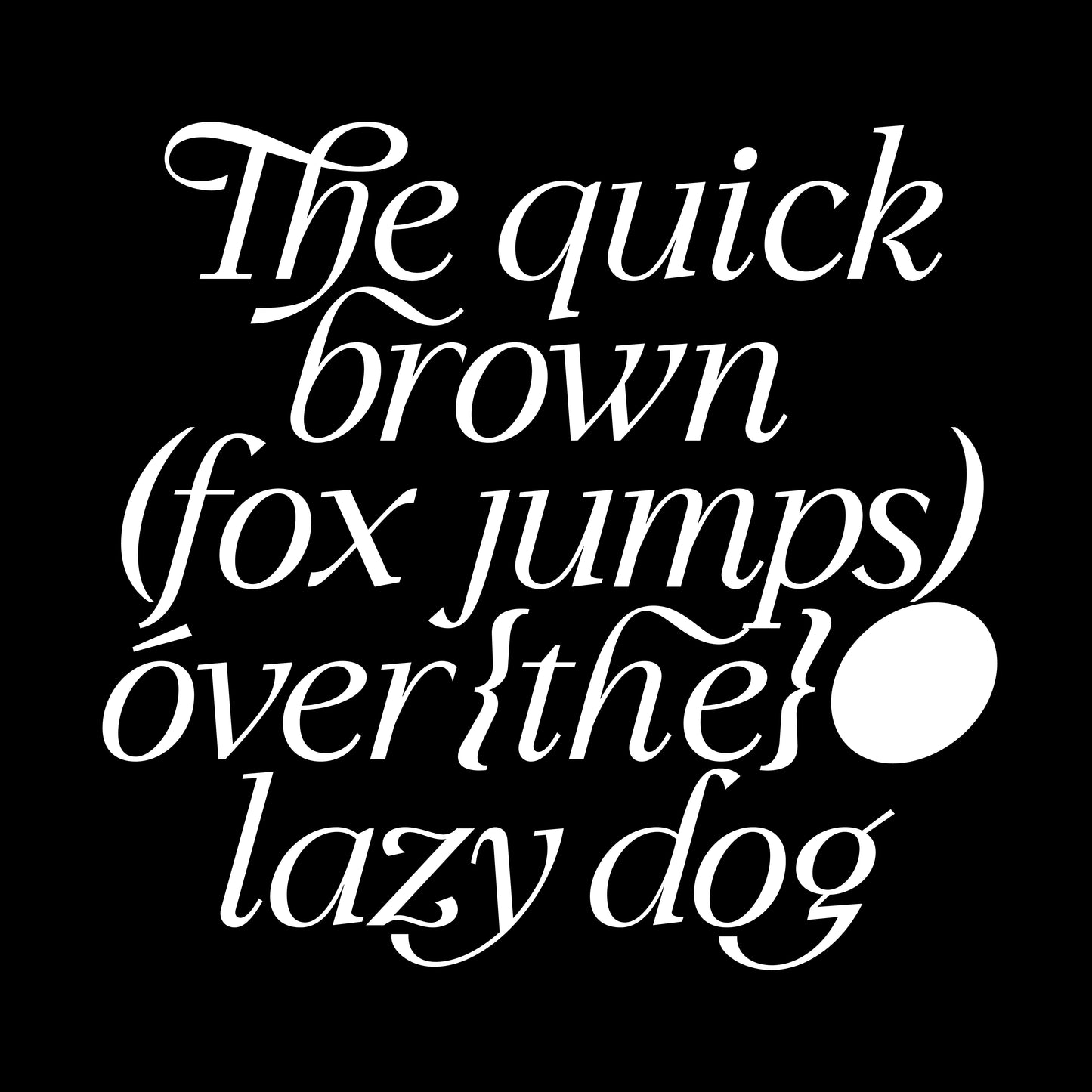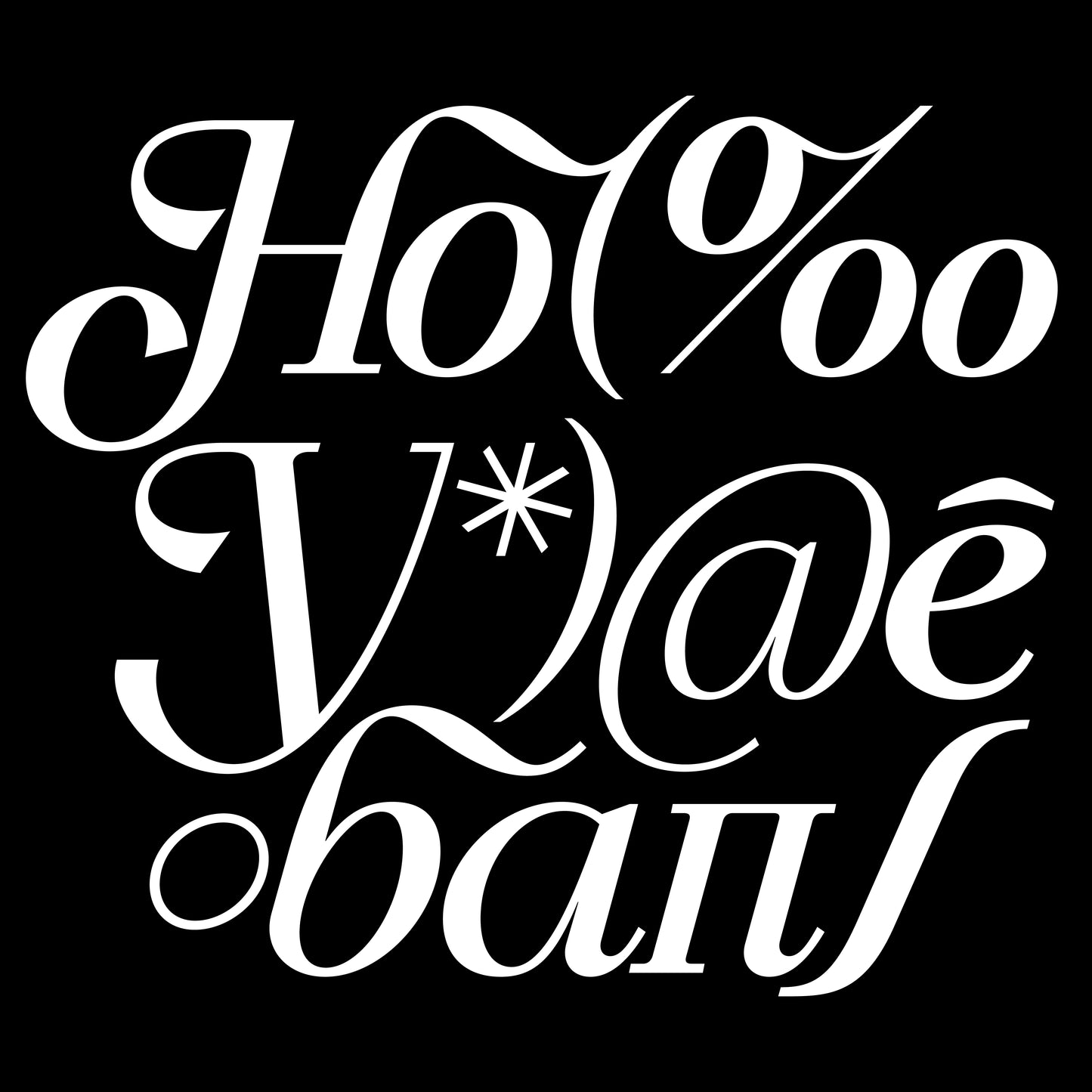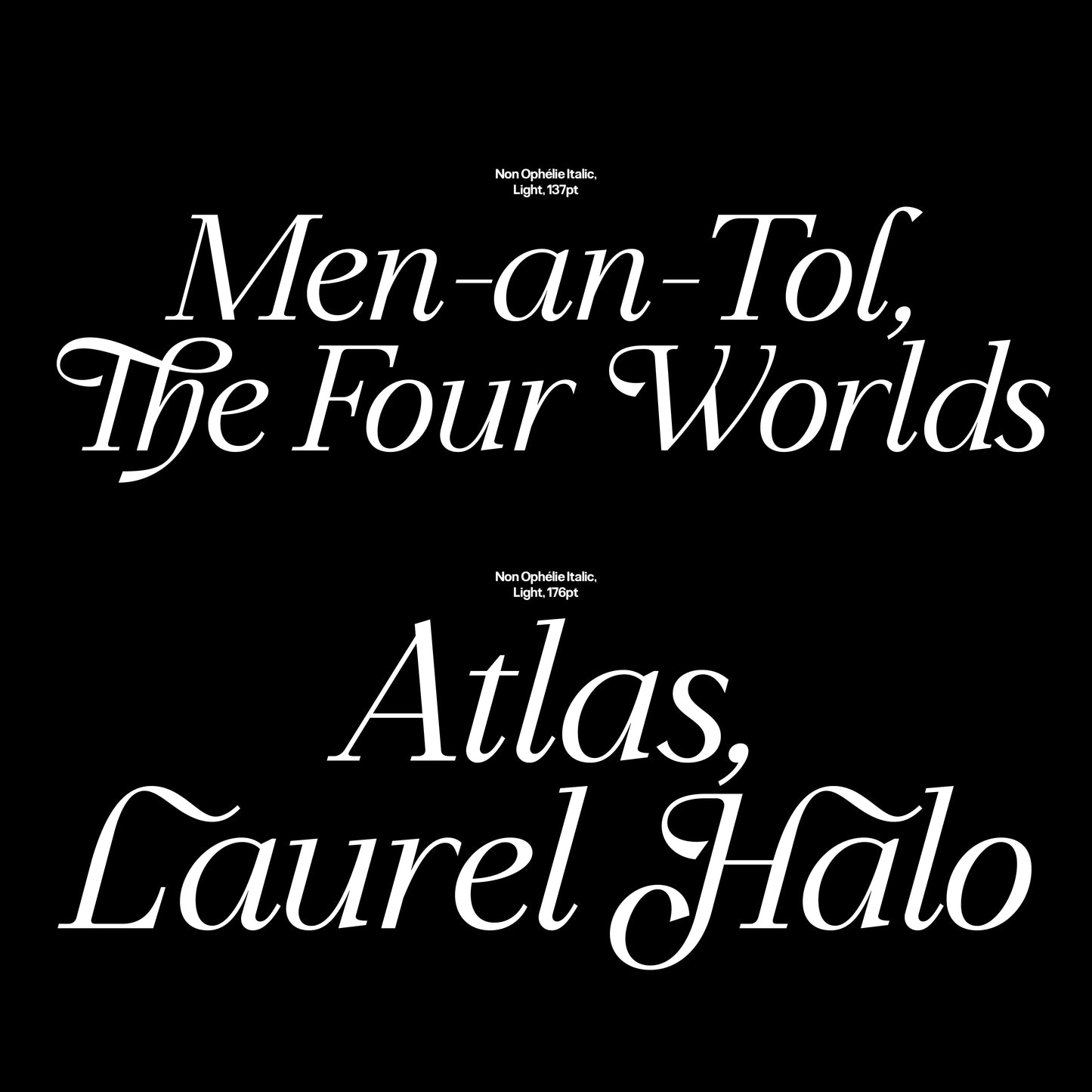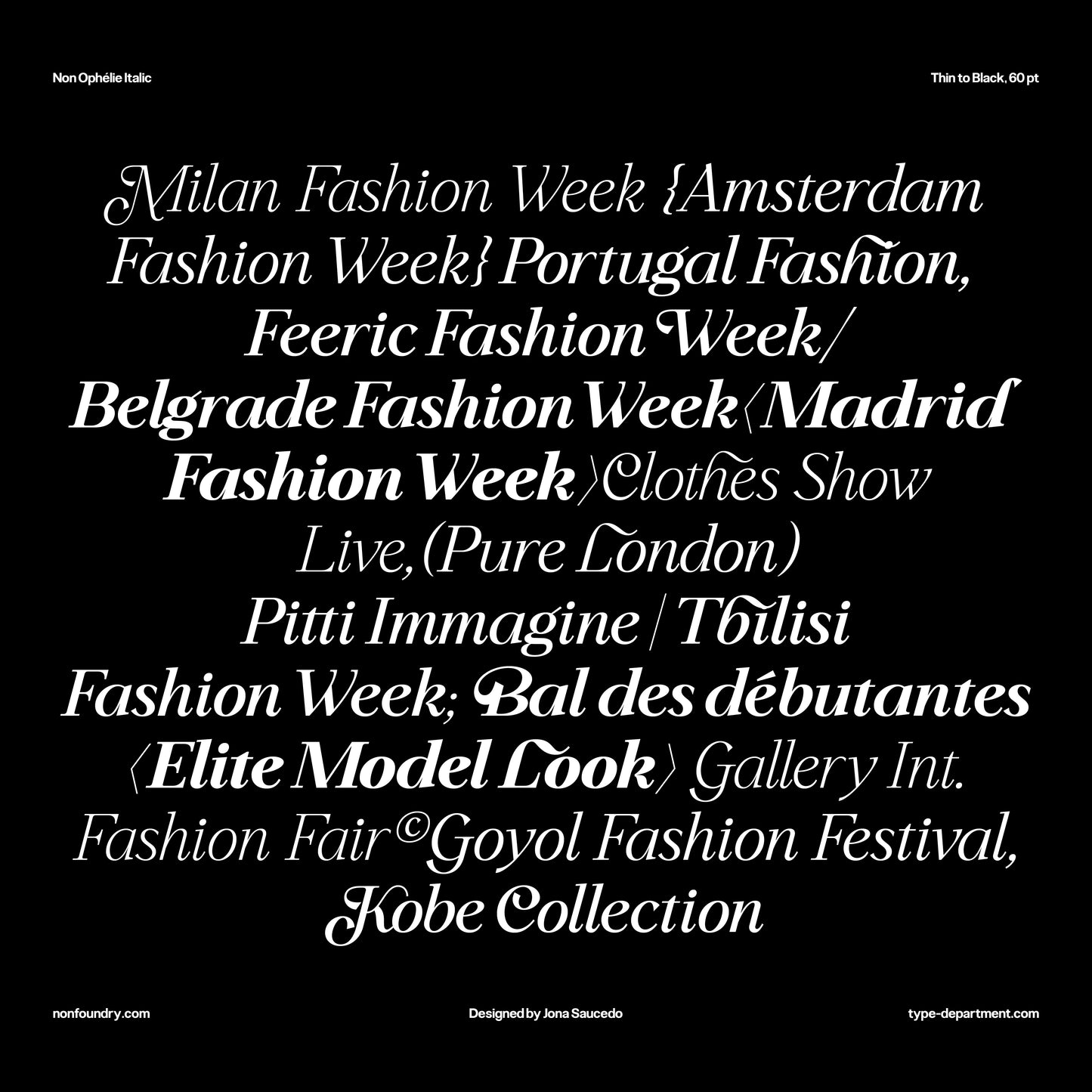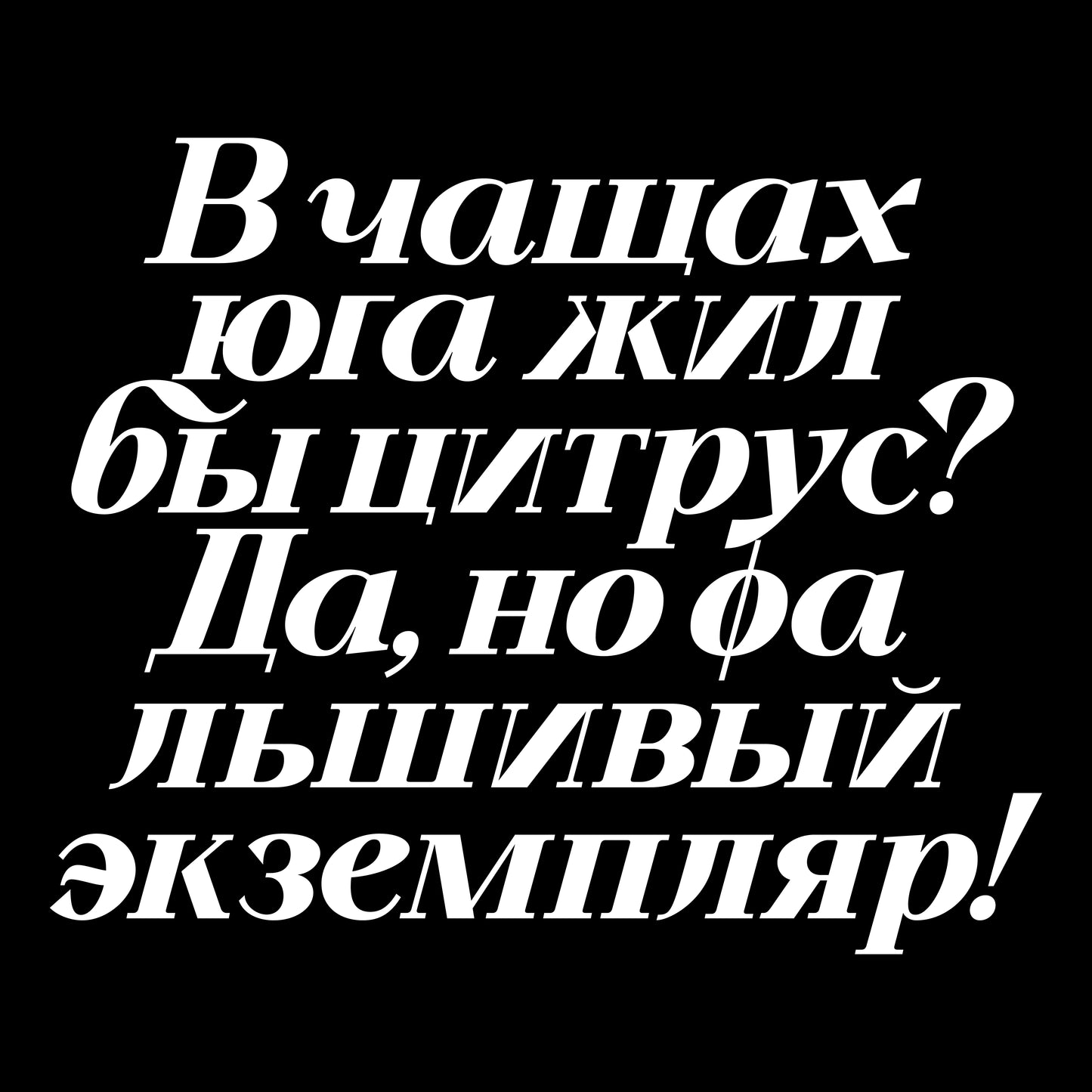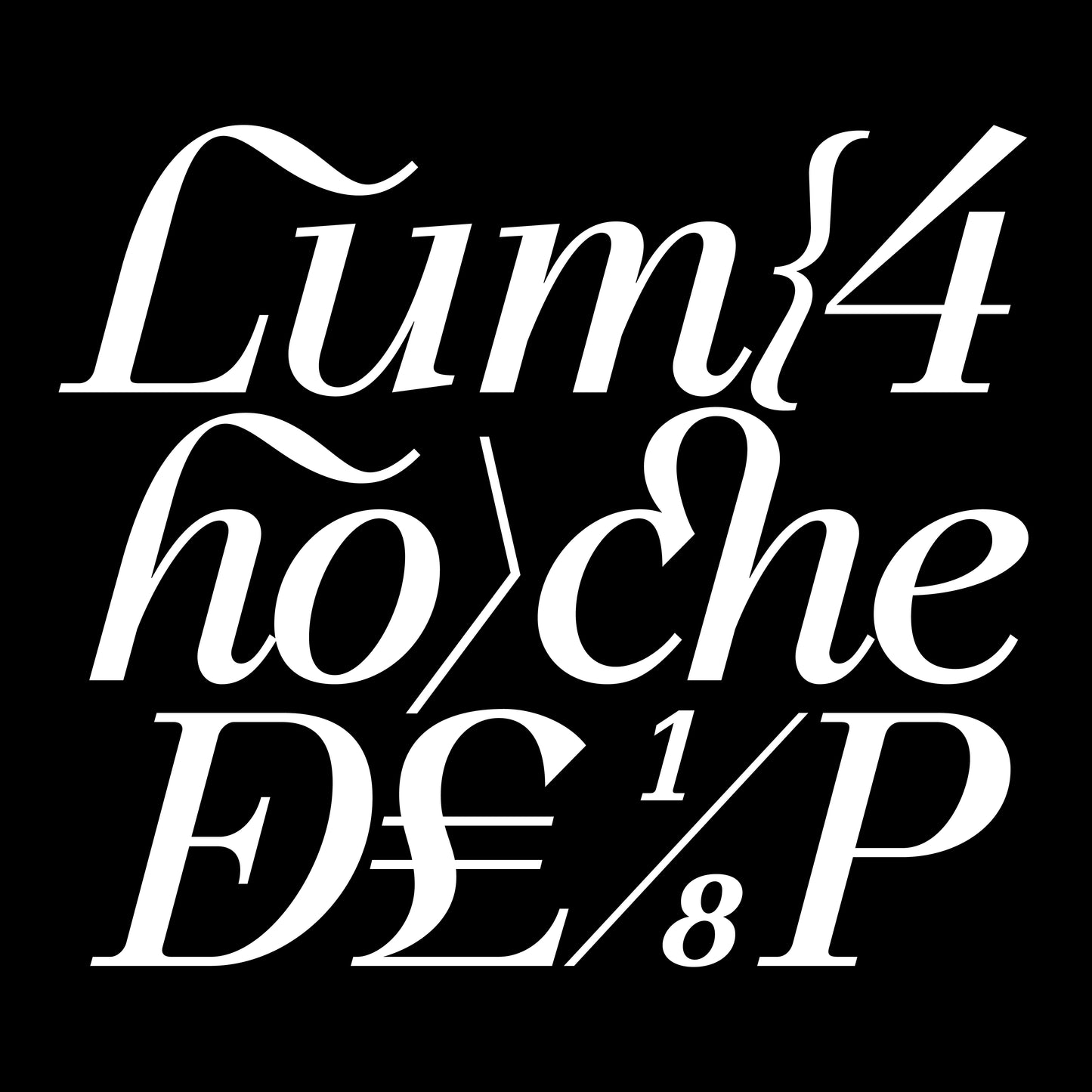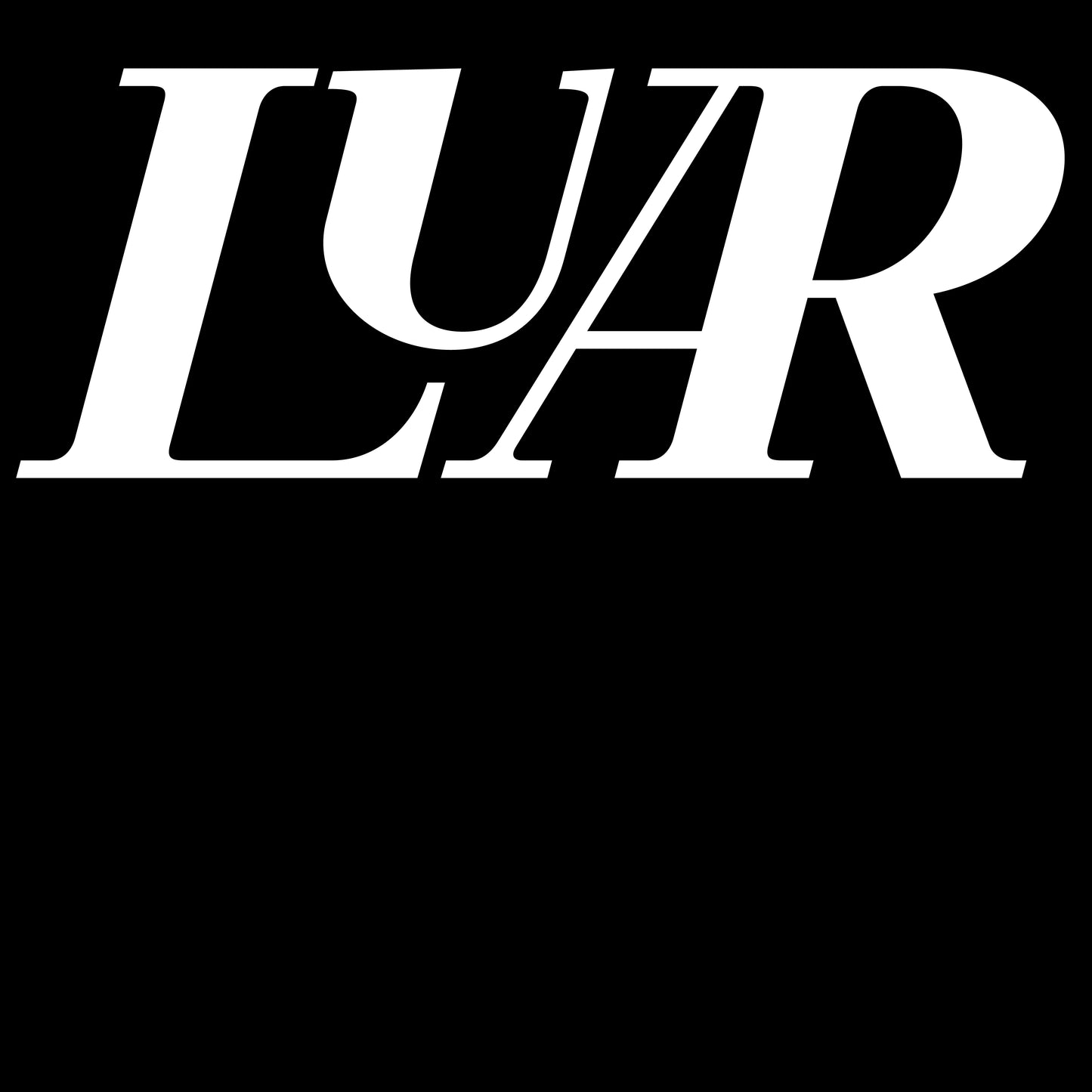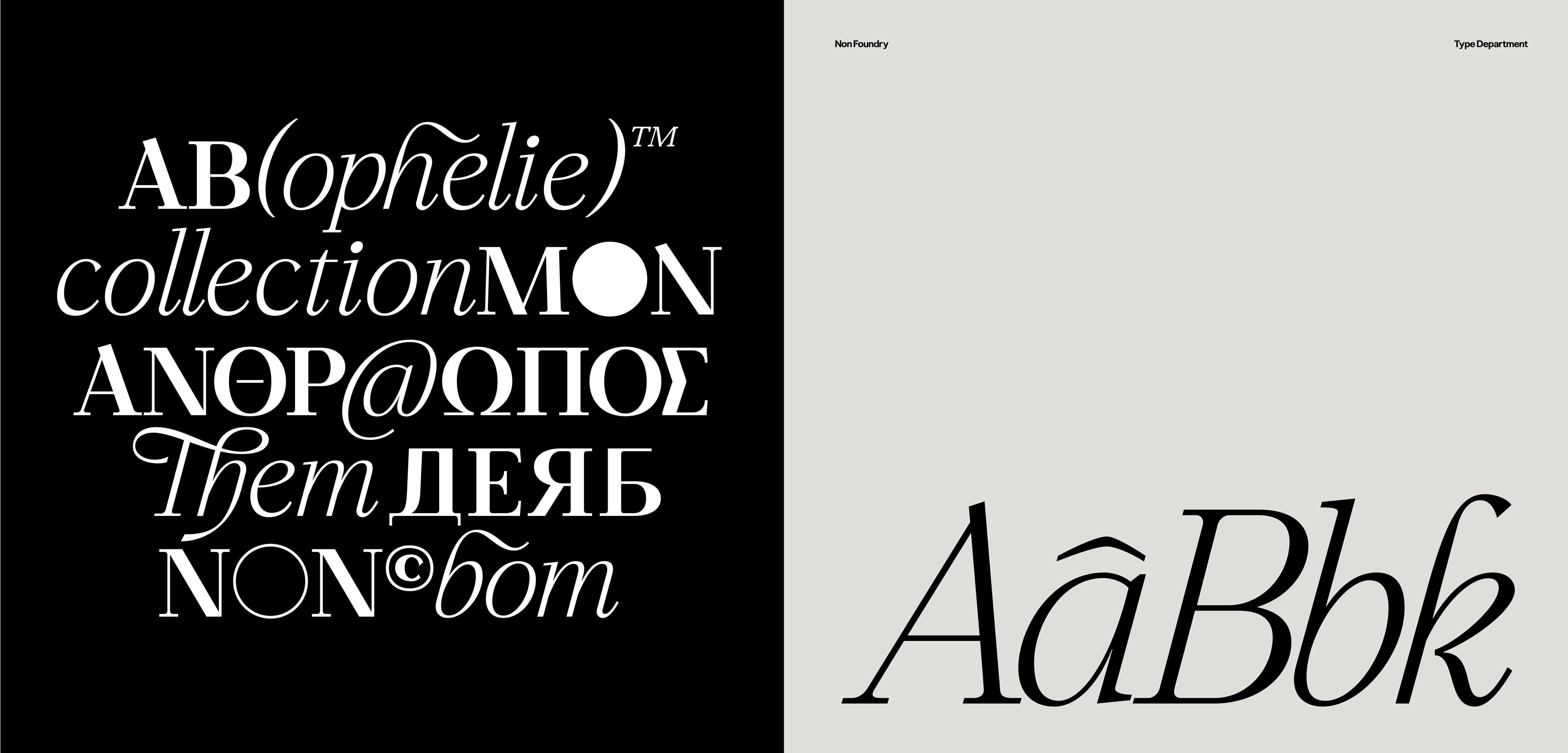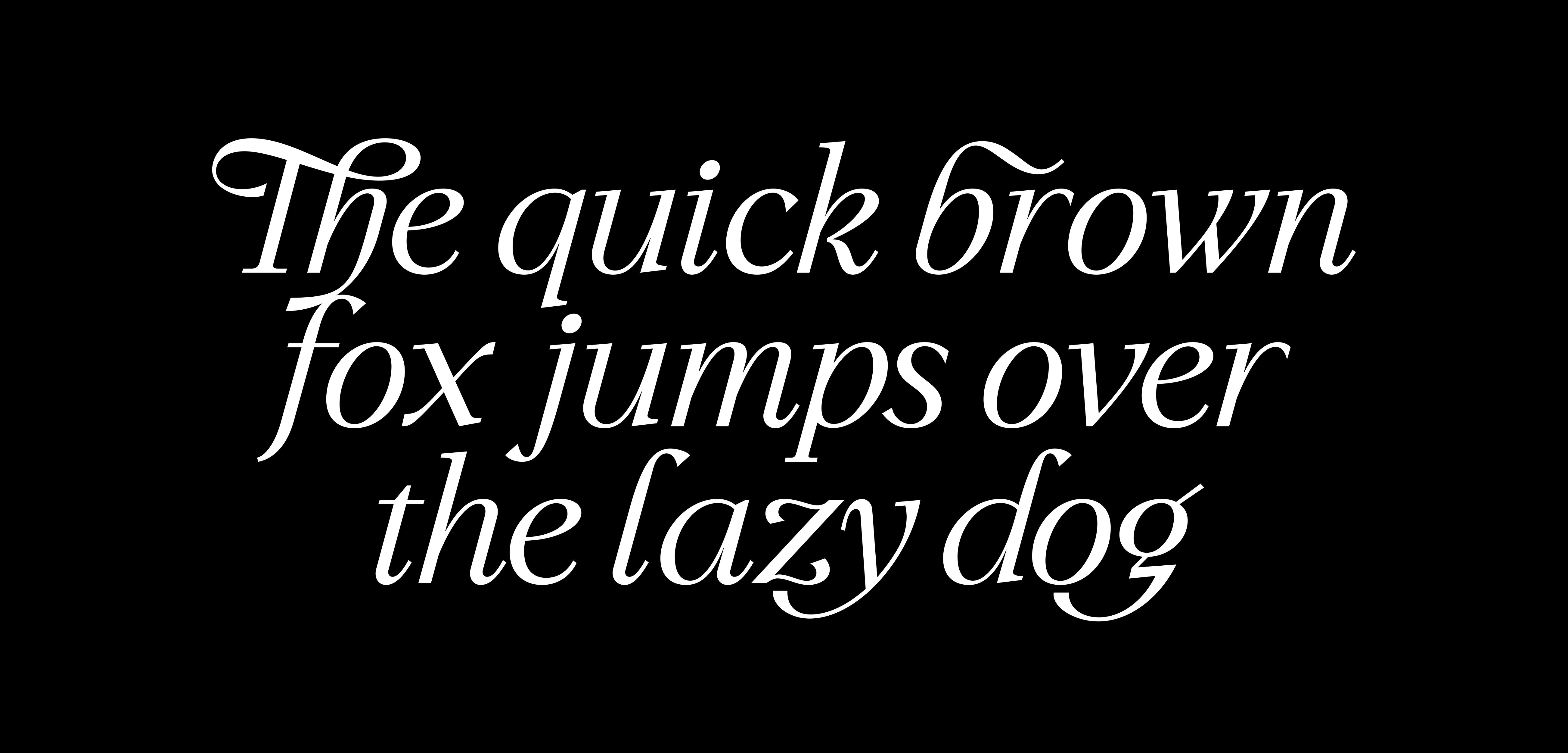
Non Ophelie Italic
Non Foundry
Non Ophelie Italic maintains the precision of the roman version, while introducing a more pronounced slant, adding a sense of fluidity and style. This update also brings new stylish ligatures and alternate glyph variations for capital letters, expanding creative possibilities for typographers and designers alike.
These details are also present in the uppercase glyphs, creating a consistent typographic system. Additionally, the high contrast between thin and thick sections, the terminal details, and its optimisation make Non Ophelie a typeface that performs best when used at large sizes.
—Total glyph set: 1030
— Ligatures
—Fractions
—Stylistic Alternates
— Currency Symbols
—Arrows